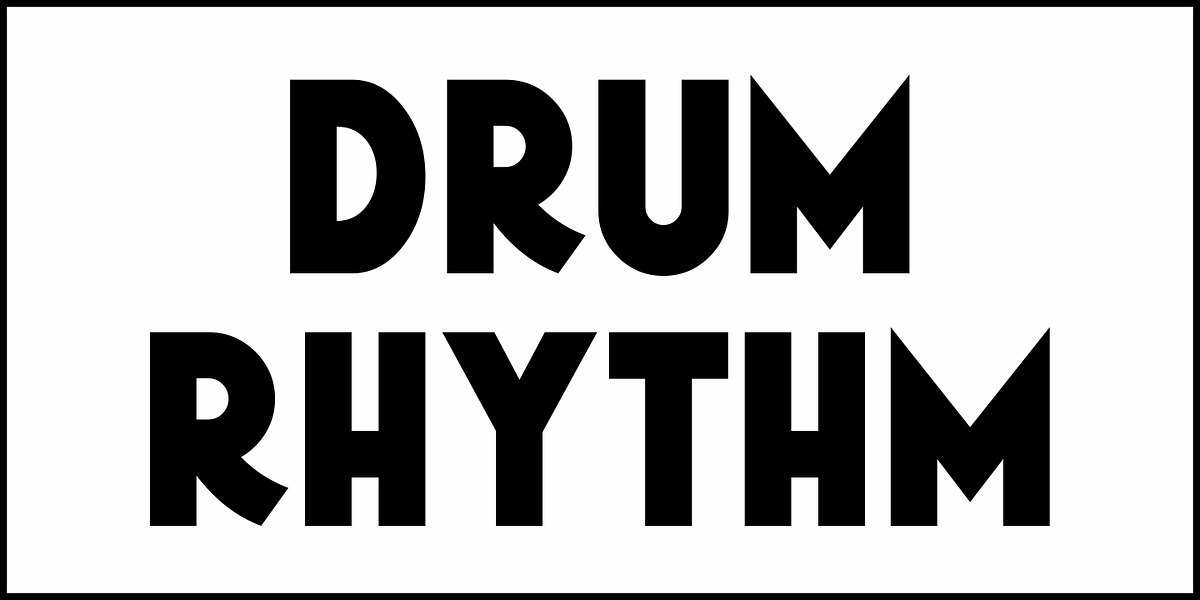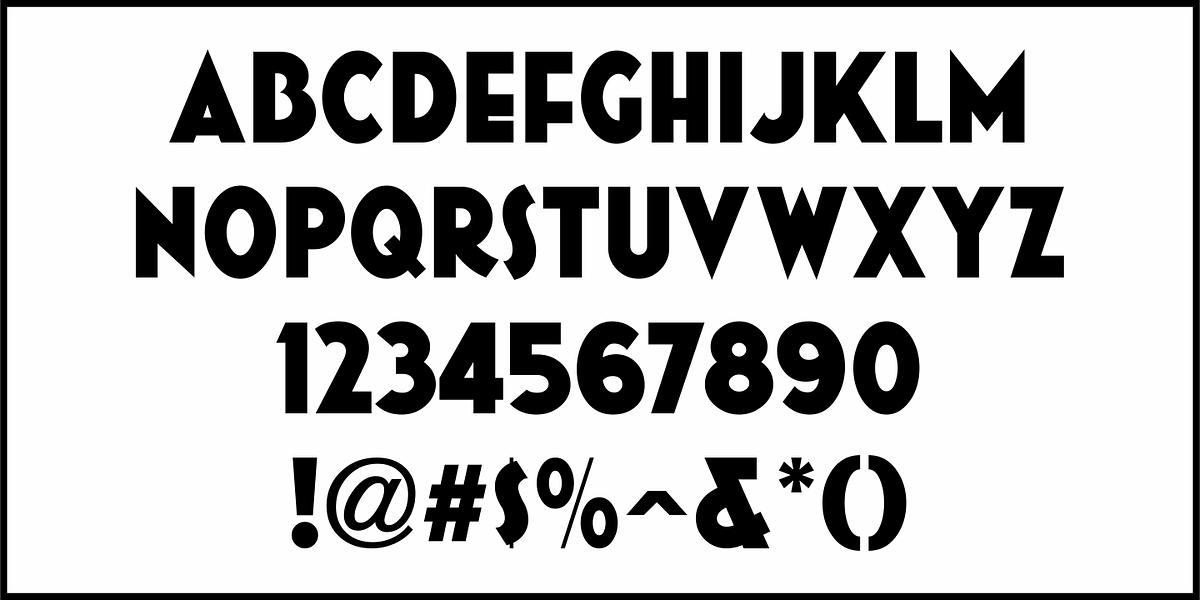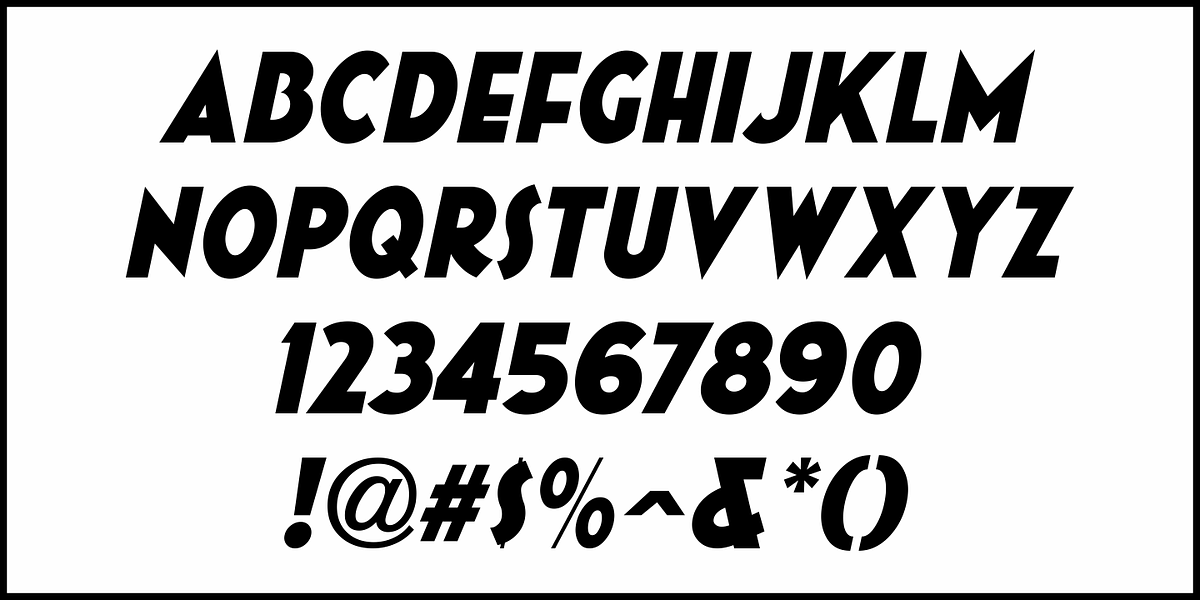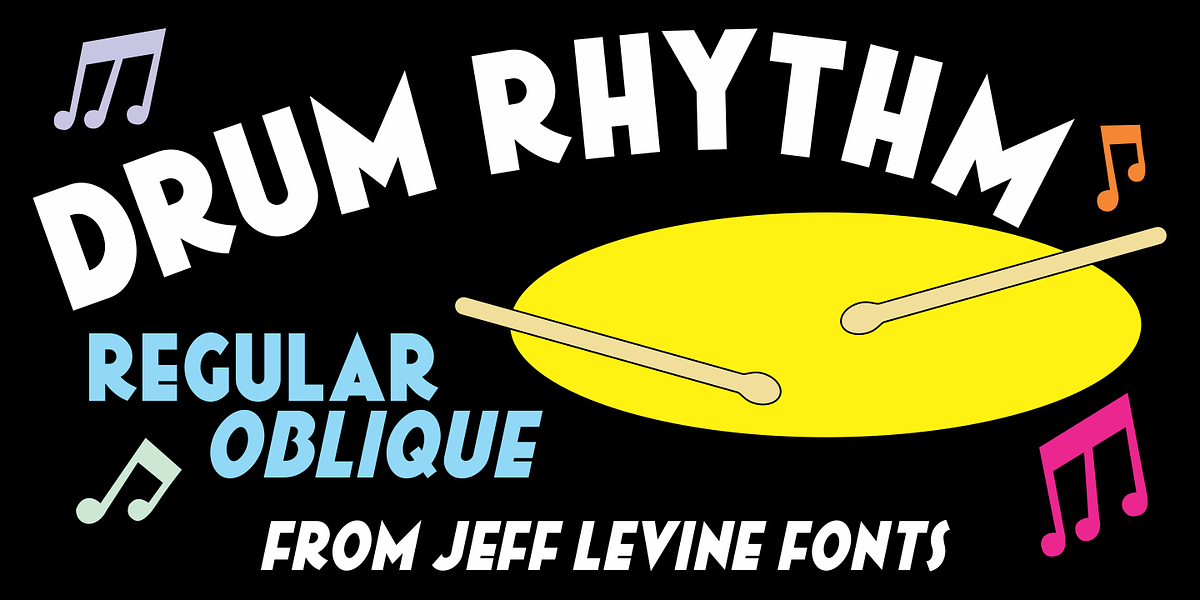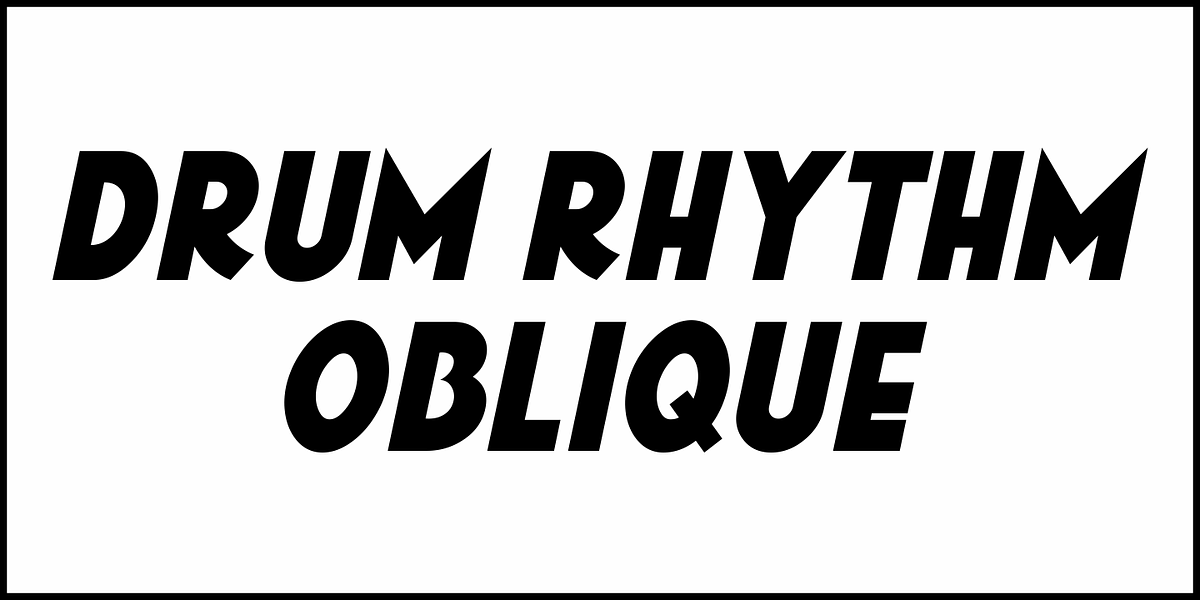
Drum Rhythm JNL
An ad in the May 3, 1928 issue of “The Film Daily” for the movie “Drums of Love” featured extra bold, sans serif hand lettering in an Art Deco style.
This is now available as Drum Rhythm JNL in both regular and oblique versions.